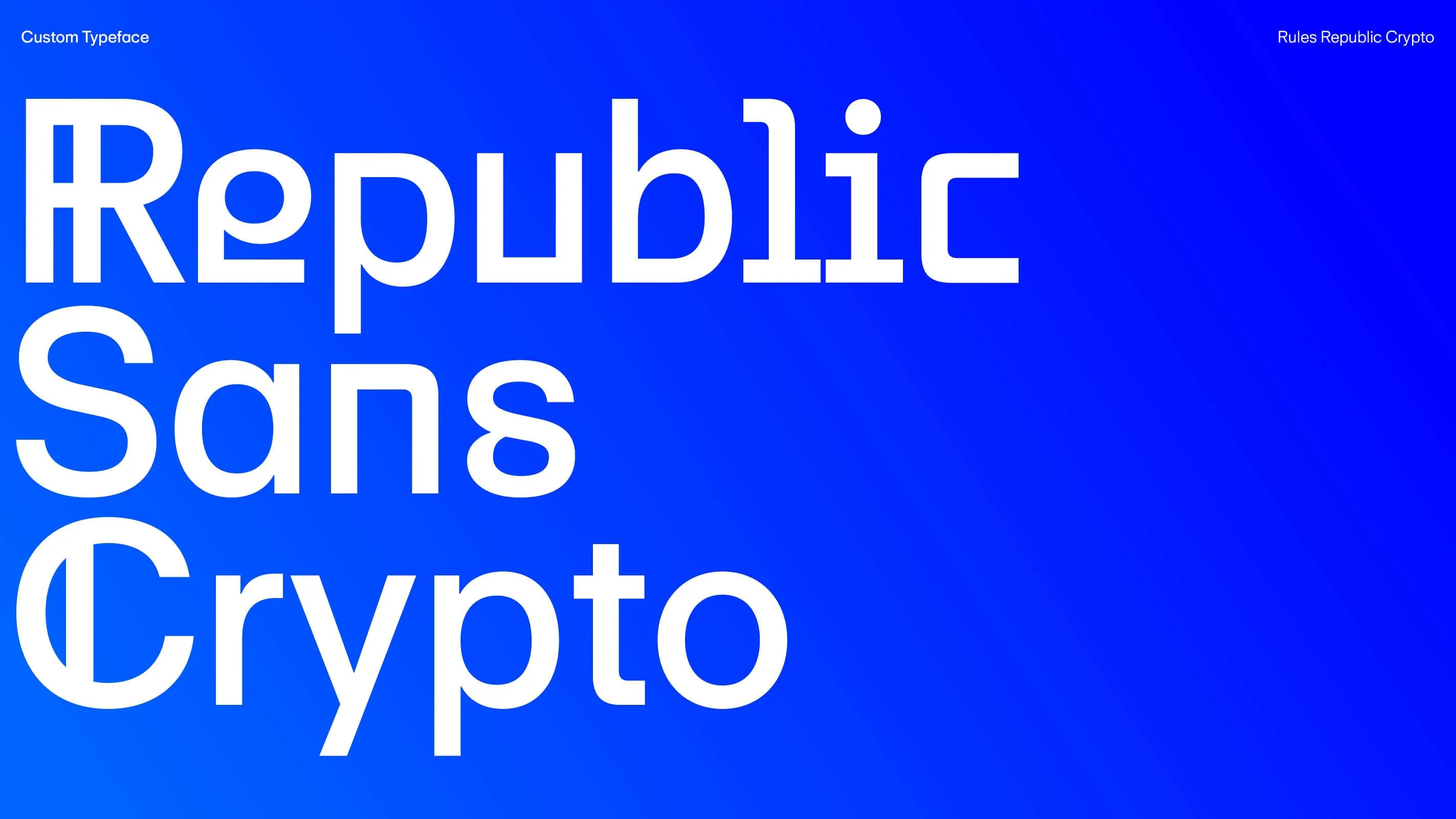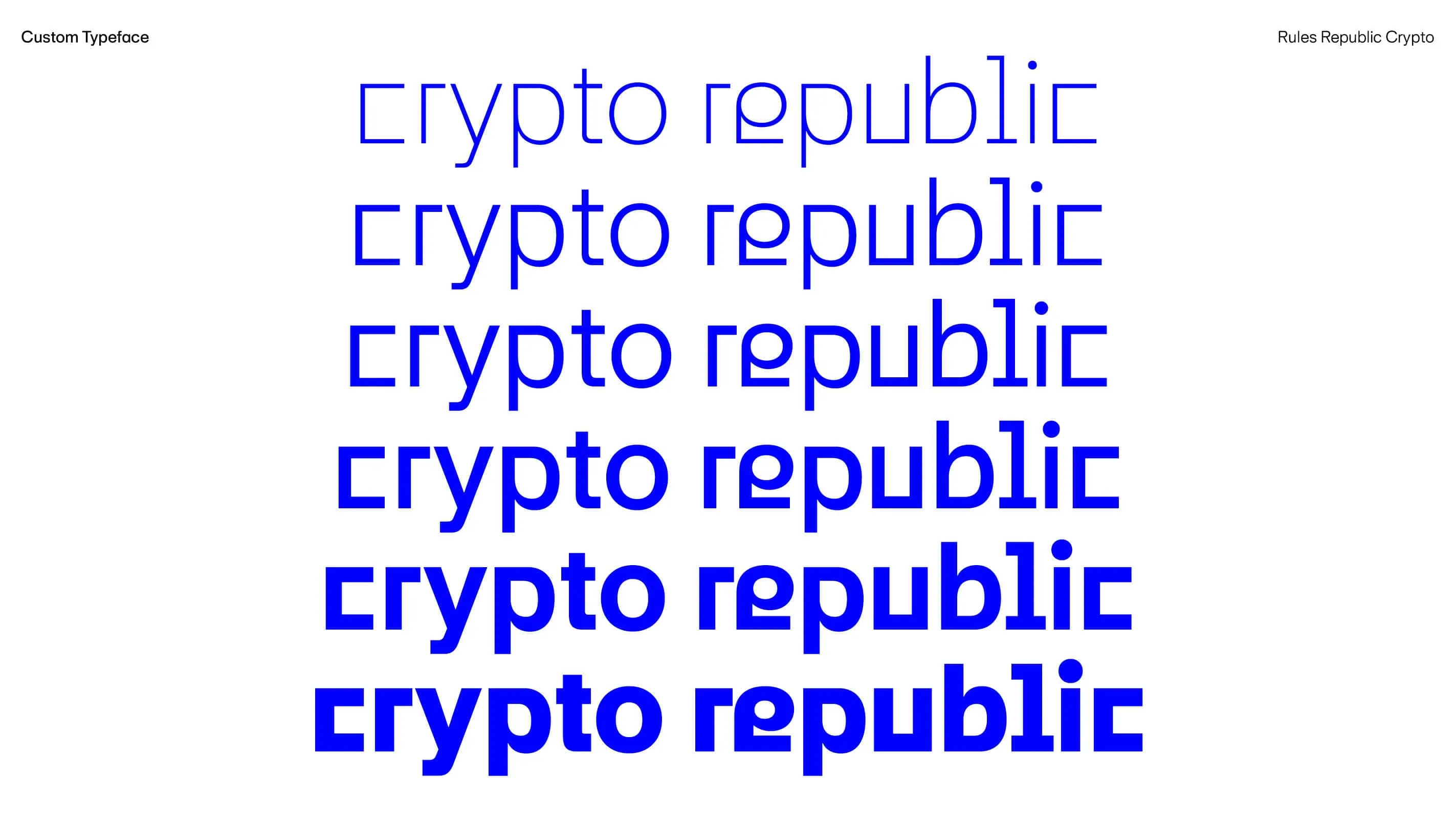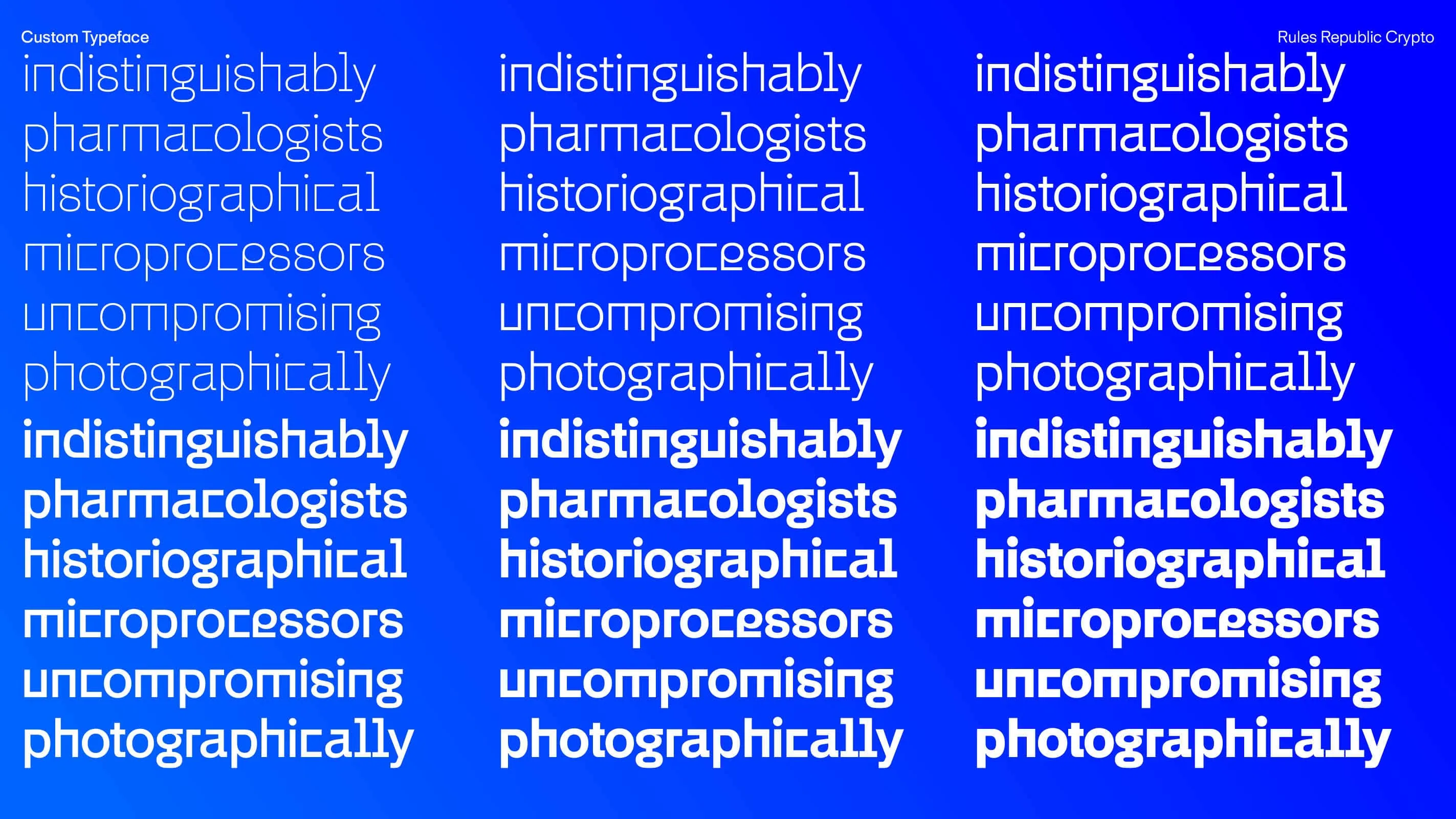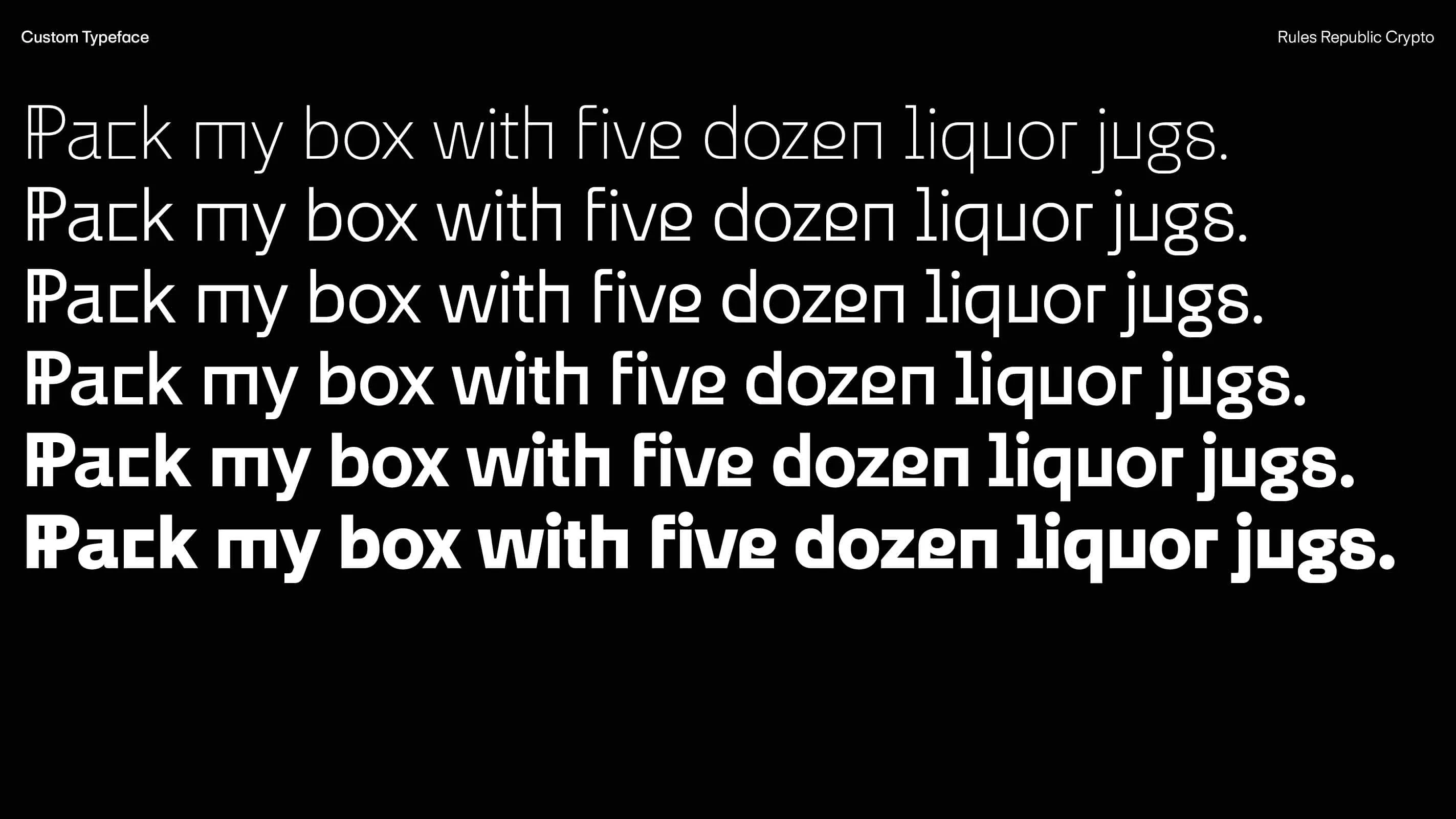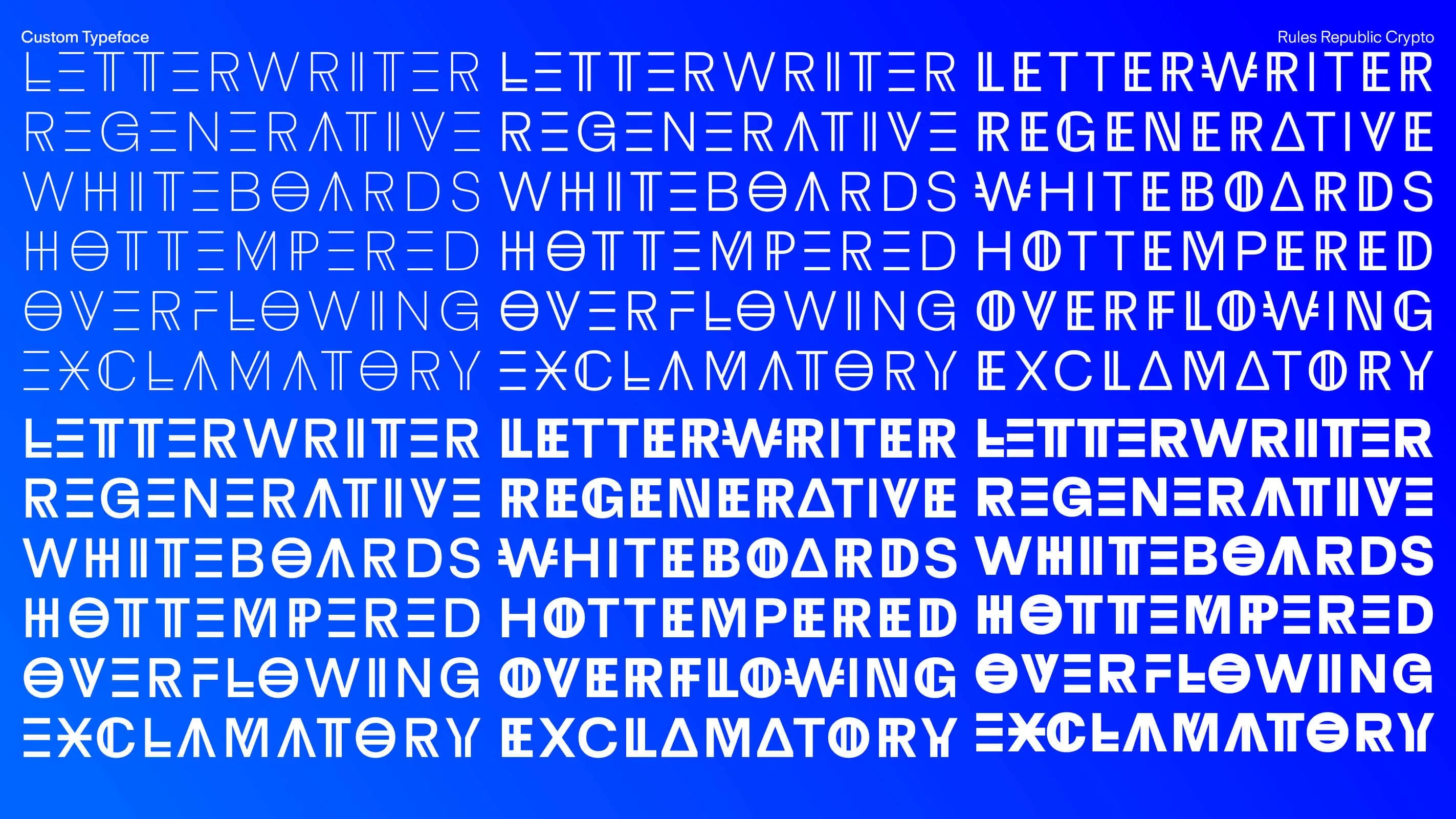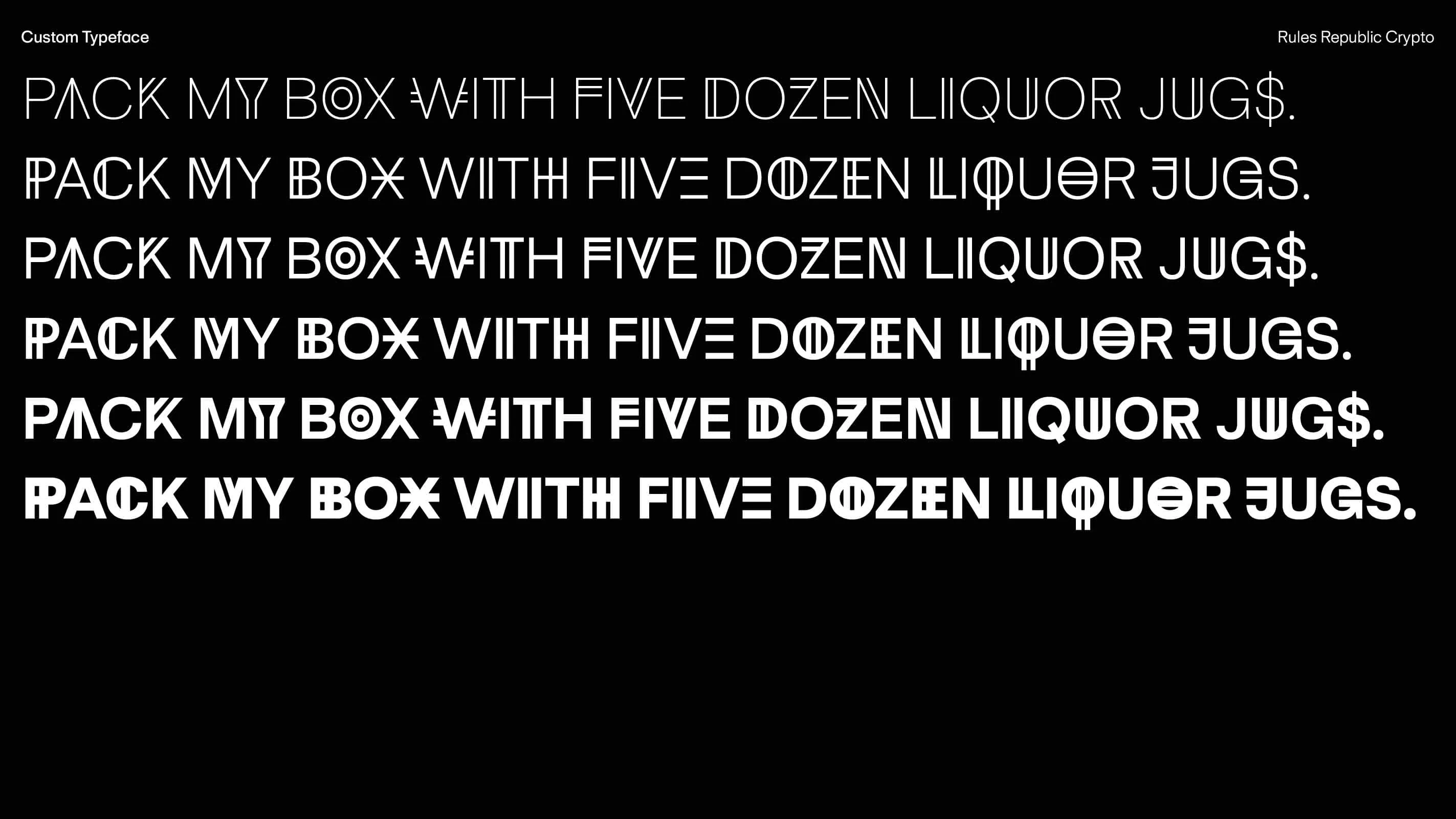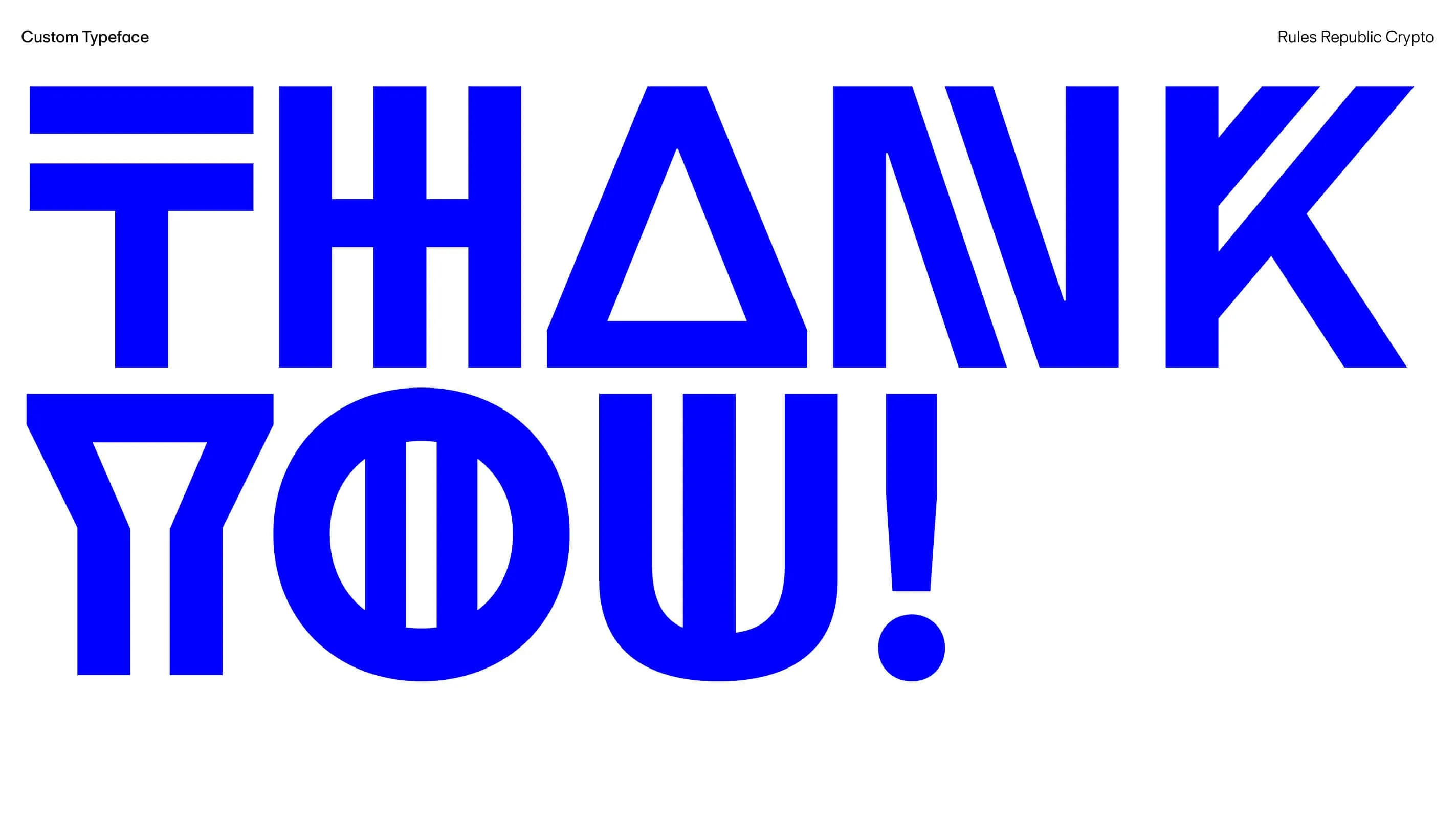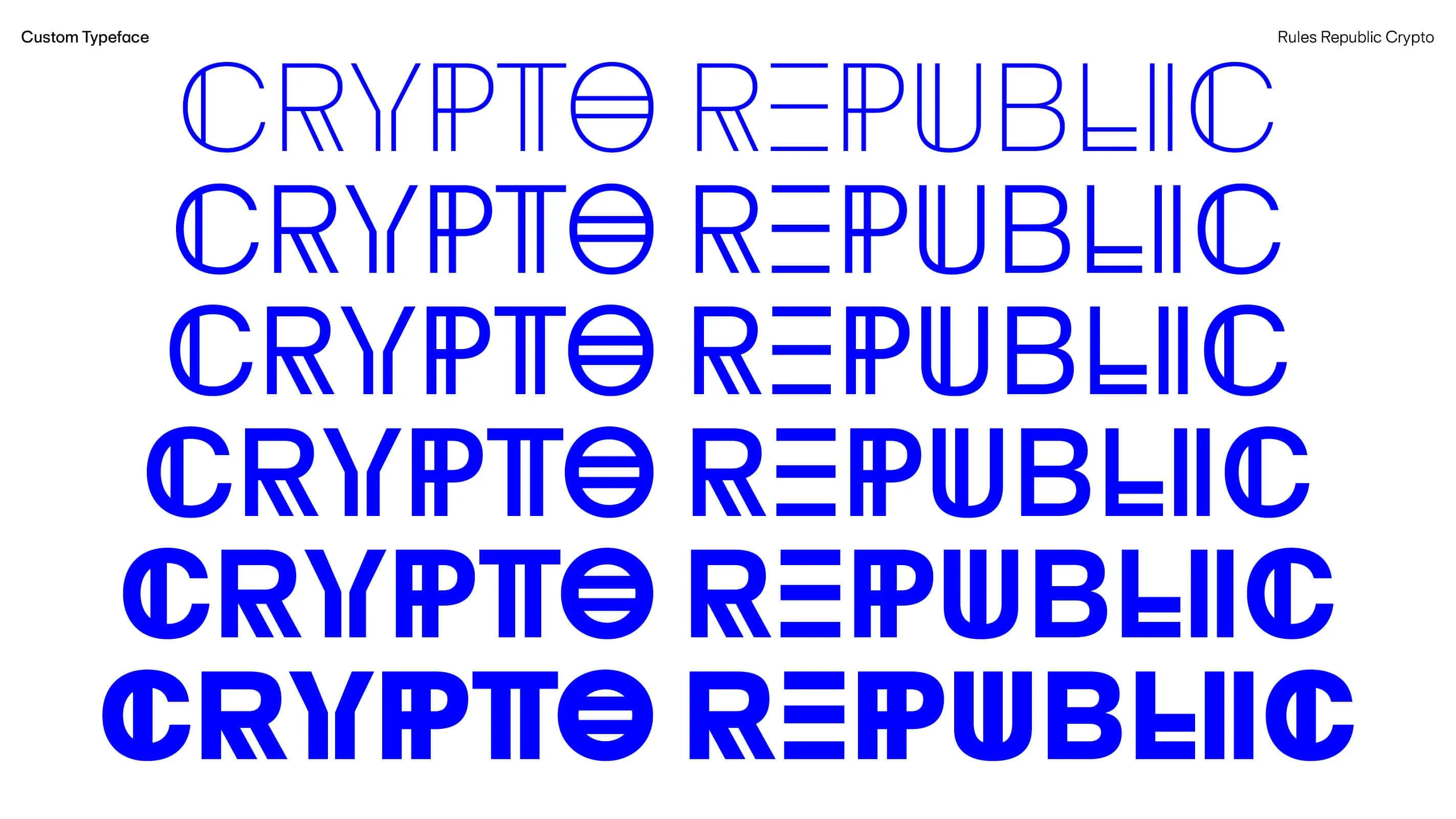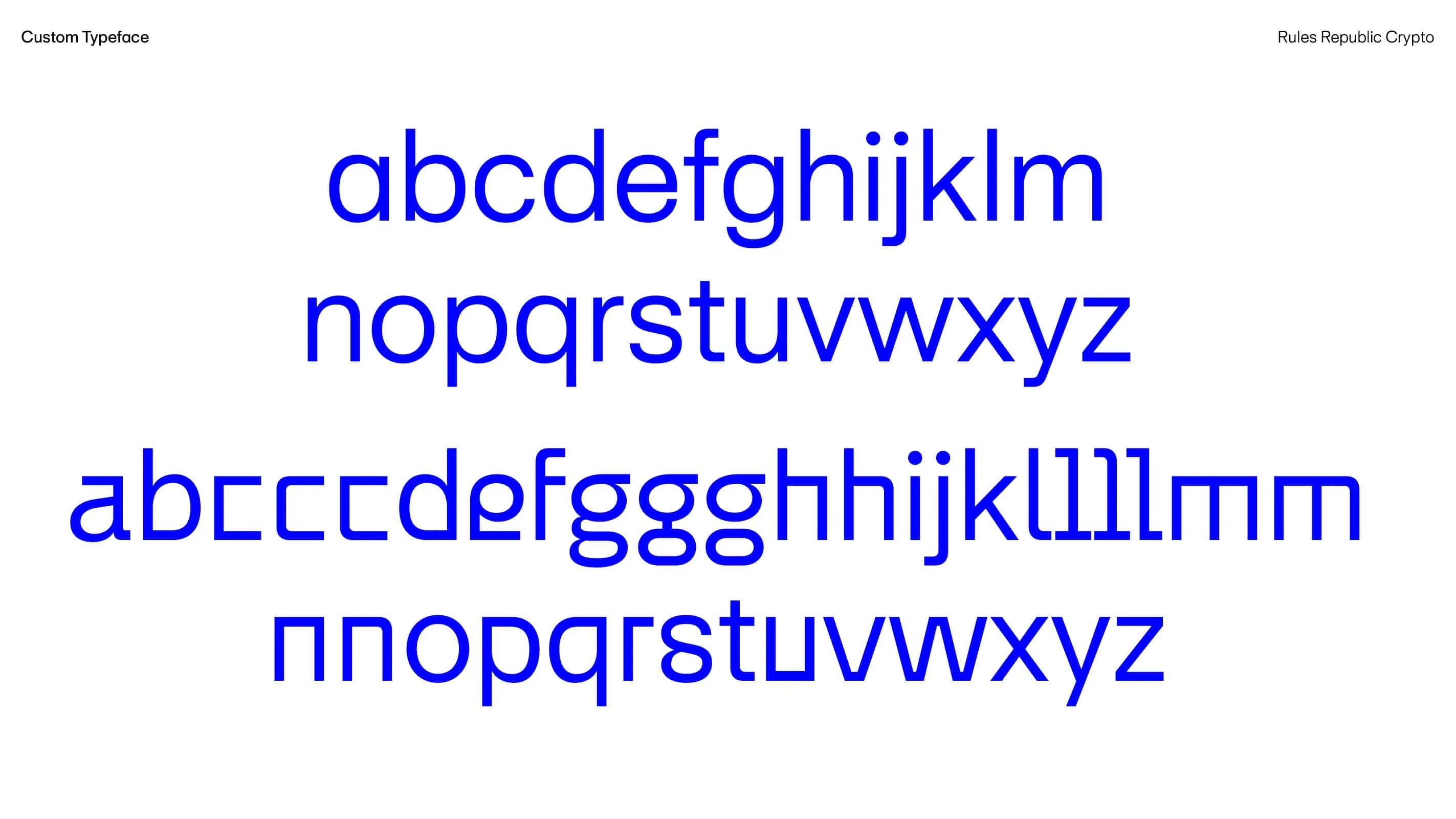
Republic Crypto
Bitcoin design applied to the whole alphabet
A brand new font system
We were contacted by Republic Crypto to design a custom font for their brand system typeface.